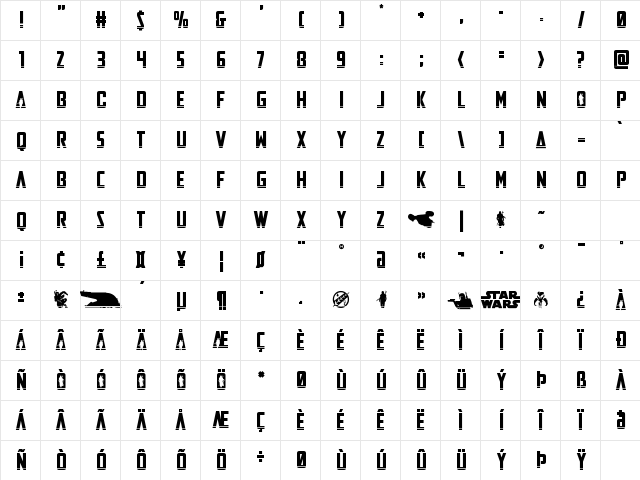
Mandalore Laser Title Regular
Design Context for Mandalore Laser Title
Mandalore Laser Title is a composed and adaptable typeface that performs quietly and consistently across a wide range of design contexts.
Pro Tip: Use Mandalore Laser Title in both headline and body roles to test its range before committing to a single application.